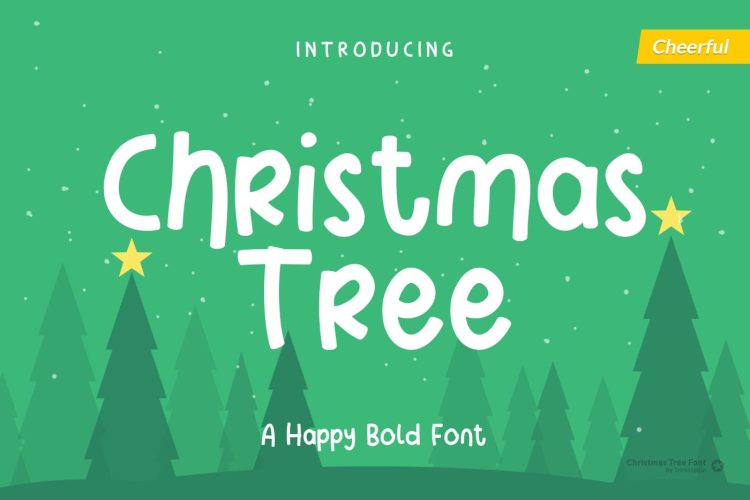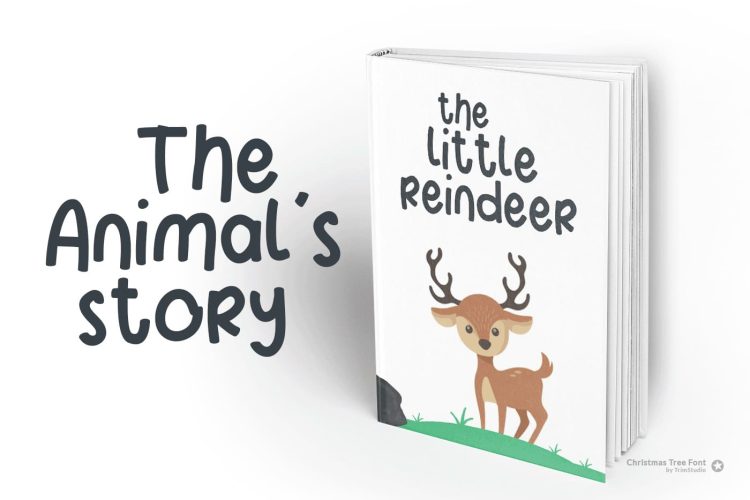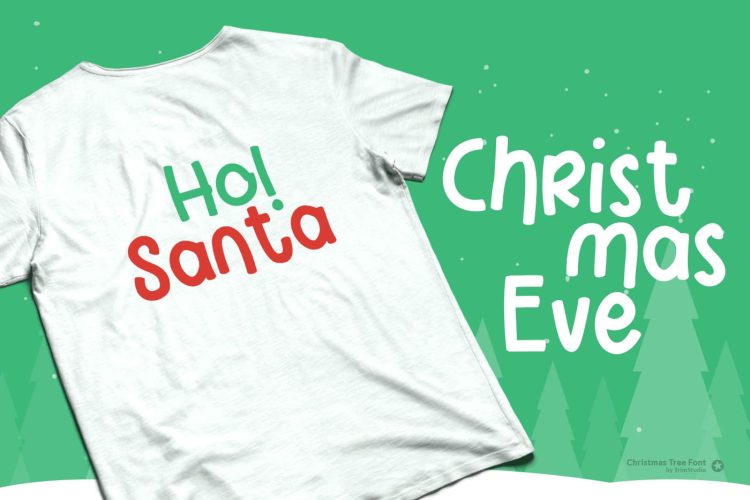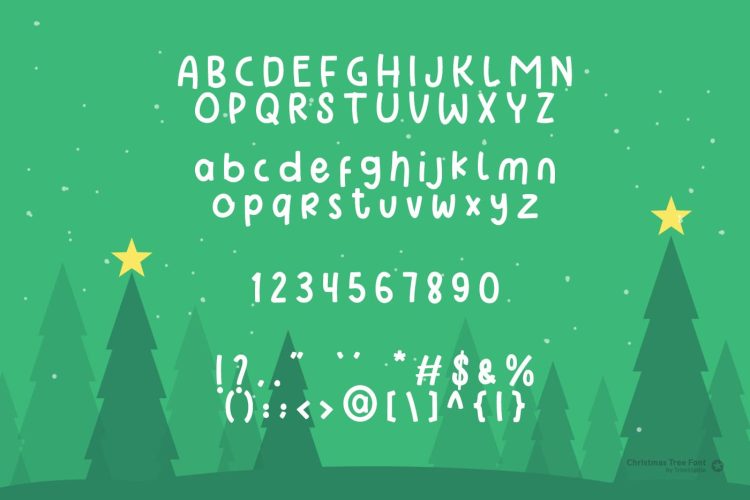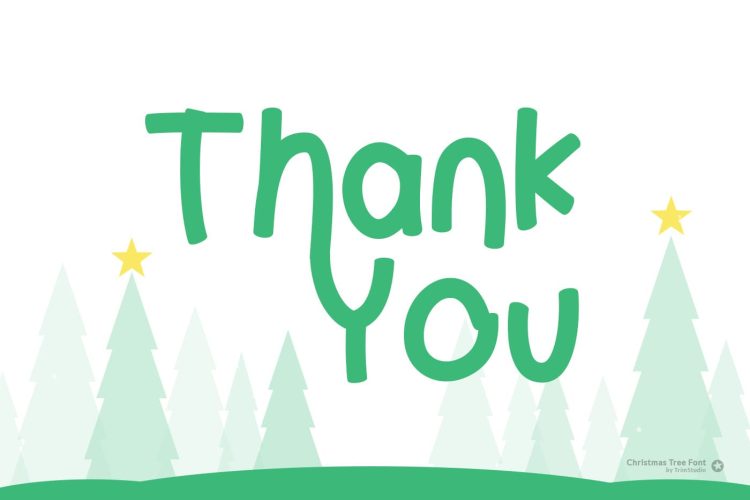
Christmas Tree is playful display font, perfect theme for your christmas and holiday, it gives happiness to your designs. This font is perfect for branding, logo, store, blog, invitations any many more!